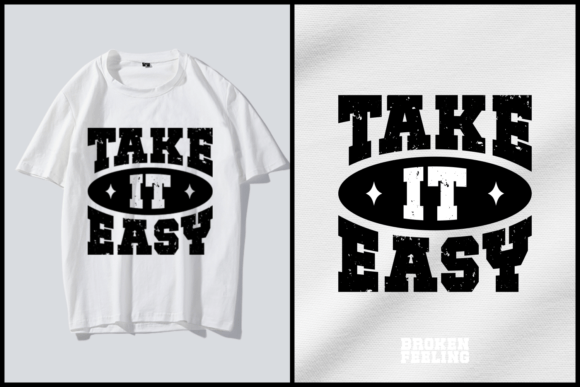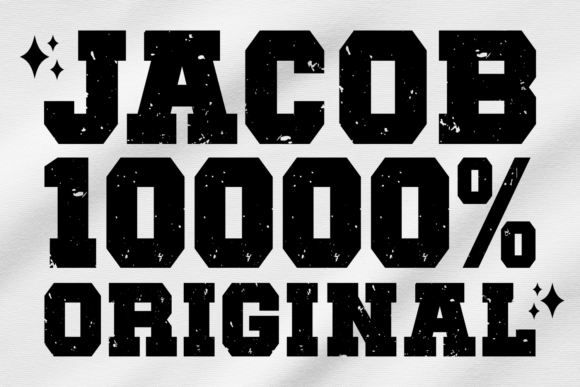
Broken Feeling Font
Unleashing the charm of the past with a twist of edgy chic, a vintage yet Grunge font reignites the love for classic styles. This careful collision of nostalgia and contemporary culture traces a unique visual imprint, taking your designs to the next level. This version of Broken font is the embodiment of raw sophistication, carefully curated to add an intriguing ambiguity to your design projects.